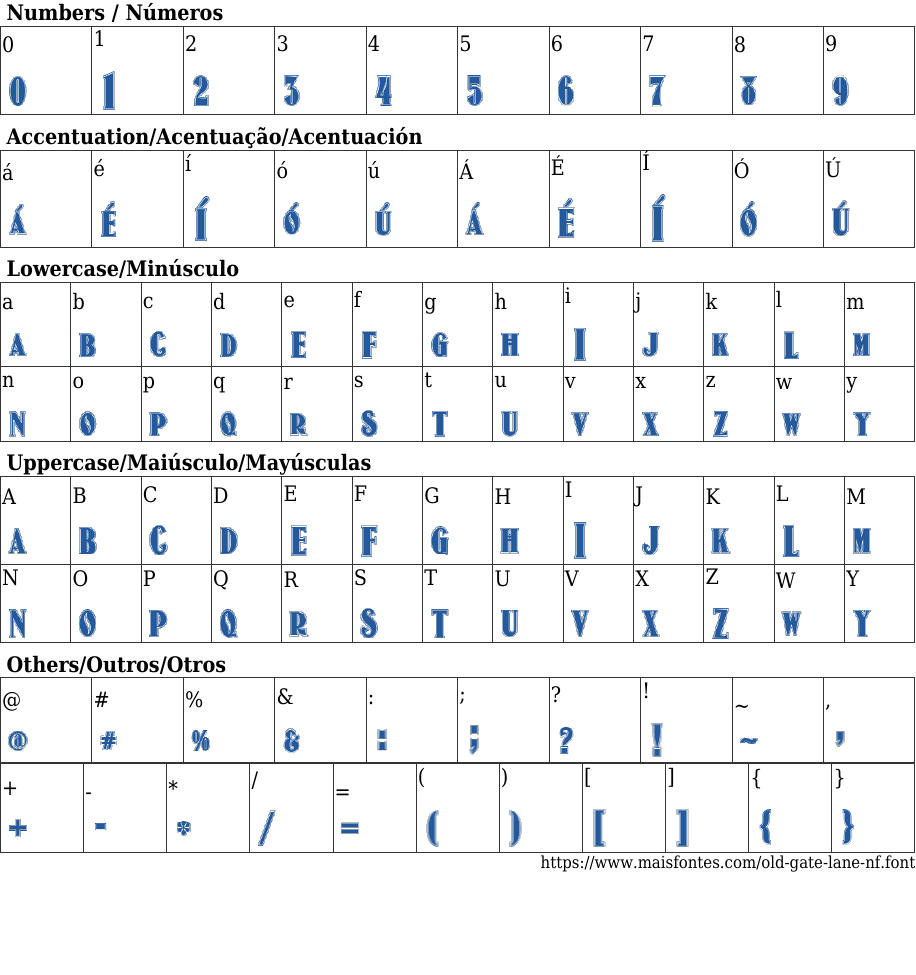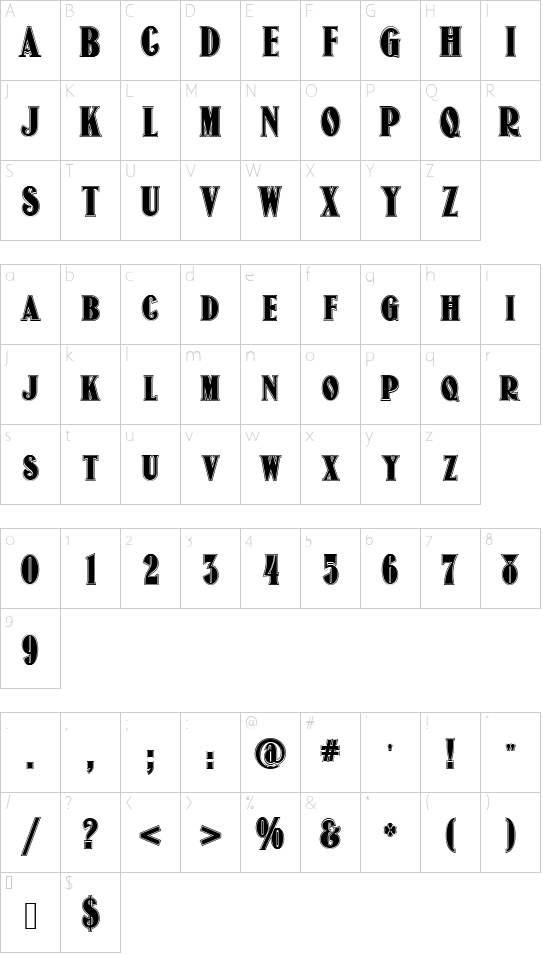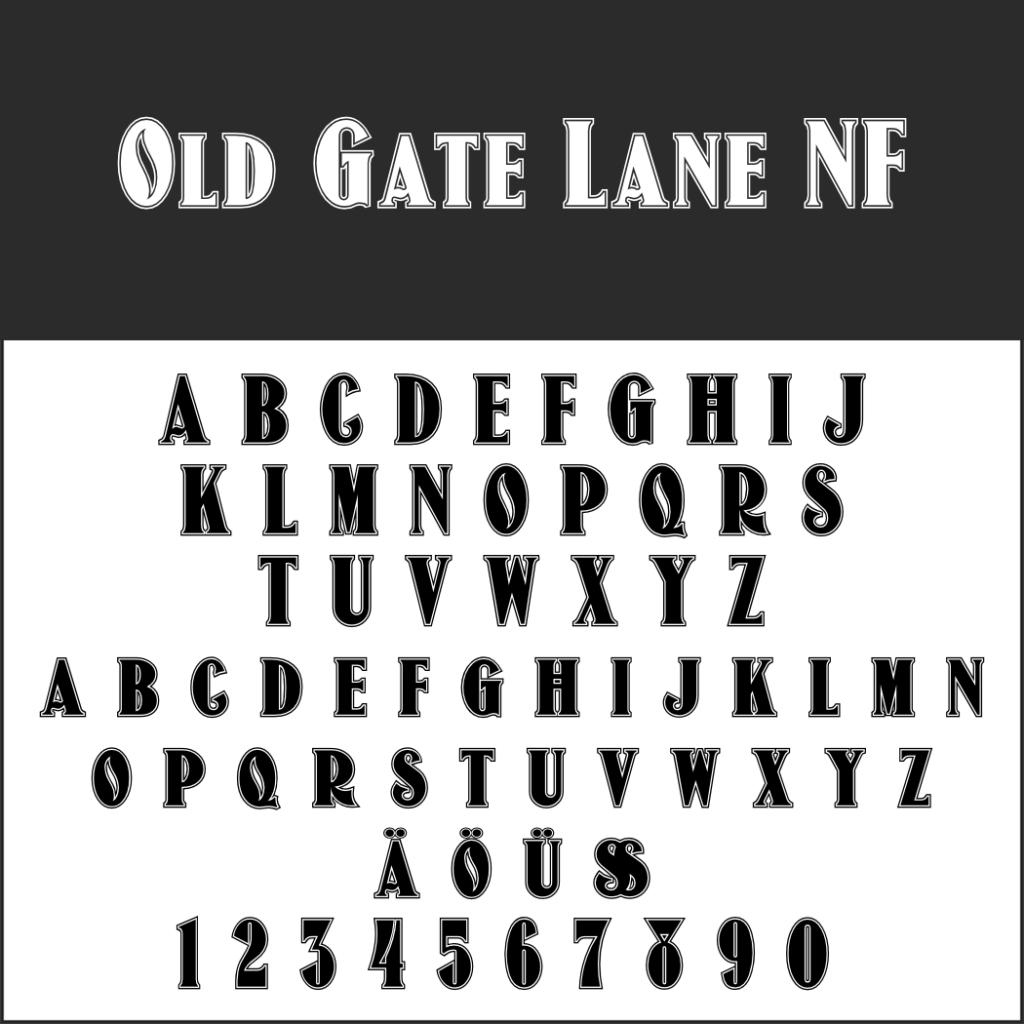
Old Gate Lane Nf Font . The old gate lane nf font contains 231 beautifully designed characters. See the glyphs, the preview and the matching requests on the forum. Old gate lane nf regular font by down fonts. File script name oldgatelanenf.ttf download free for personal use. Download old gate lane nf font · free for commercial use · here’s another reworking of a classic art deco font, binner poster. Download old gate lane nf font. About old gate lane nf regular font. Download oldgate lane outline, a retro font by nick's fonts, for free. ️ customize your own preview on ffonts.net to make sure it`s the right one for your designs. Download and install the font file from nicks fonts website, where you can also find more free fonts for various. Old gate lane nf is a condensed and outlined version of binner poster, an art deco font. It is suitable for formal or fun occasions and best used in larger point sizes. Old gate lane nf by copyright [c] 2001, 2006 nick curtis. Old gate lane is a retro cool lettering font with an outline effect.
See the glyphs, the preview and the matching requests on the forum. Download and install the font file from nicks fonts website, where you can also find more free fonts for various. Download old gate lane nf font. ️ customize your own preview on ffonts.net to make sure it`s the right one for your designs. It is suitable for formal or fun occasions and best used in larger point sizes. Download old gate lane nf font · free for commercial use · here’s another reworking of a classic art deco font, binner poster. Old gate lane is a retro cool lettering font with an outline effect. About old gate lane nf regular font. Old gate lane nf is a condensed and outlined version of binner poster, an art deco font. Old gate lane nf by copyright [c] 2001, 2006 nick curtis.
Old Gate Lane Nf Font Old gate lane nf regular font by down fonts. ️ customize your own preview on ffonts.net to make sure it`s the right one for your designs. The old gate lane nf font contains 231 beautifully designed characters. Old gate lane nf regular font by down fonts. It is suitable for formal or fun occasions and best used in larger point sizes. Download old gate lane nf font · free for commercial use · here’s another reworking of a classic art deco font, binner poster. Old gate lane is a retro cool lettering font with an outline effect. Download and install the font file from nicks fonts website, where you can also find more free fonts for various. Old gate lane nf by copyright [c] 2001, 2006 nick curtis. File script name oldgatelanenf.ttf download free for personal use. About old gate lane nf regular font. See the glyphs, the preview and the matching requests on the forum. Download oldgate lane outline, a retro font by nick's fonts, for free. Old gate lane nf is a condensed and outlined version of binner poster, an art deco font. Download old gate lane nf font.
Old Gate Lane Nf Font About old gate lane nf regular font. Old gate lane is a retro cool lettering font with an outline effect. Old gate lane nf regular font by down fonts. Download old gate lane nf font. See the glyphs, the preview and the matching requests on the forum. ️ customize your own preview on ffonts.net to make sure it`s the right. Old Gate Lane Nf Font.
Old Gate Lane Nf Font Old gate lane nf by copyright [c] 2001, 2006 nick curtis. File script name oldgatelanenf.ttf download free for personal use. Download old gate lane nf font. See the glyphs, the preview and the matching requests on the forum. Old gate lane nf regular font by down fonts. It is suitable for formal or fun occasions and best used in larger. Old Gate Lane Nf Font.
Old Gate Lane NF Regular Download for free at Free Fonts Old Gate Lane Nf Font About old gate lane nf regular font. Old gate lane nf is a condensed and outlined version of binner poster, an art deco font. Download oldgate lane outline, a retro font by nick's fonts, for free. The old gate lane nf font contains 231 beautifully designed characters. Download old gate lane nf font. Download old gate lane nf font ·. Old Gate Lane Nf Font.
Old Gate Lane Nf Font Old gate lane nf is a condensed and outlined version of binner poster, an art deco font. Old gate lane nf by copyright [c] 2001, 2006 nick curtis. The old gate lane nf font contains 231 beautifully designed characters. Download old gate lane nf font. Old gate lane is a retro cool lettering font with an outline effect. Old gate. Old Gate Lane Nf Font.
Old Gate Lane NF Font Zillion Old Gate Lane Nf Font About old gate lane nf regular font. The old gate lane nf font contains 231 beautifully designed characters. Old gate lane nf regular font by down fonts. Old gate lane is a retro cool lettering font with an outline effect. Old gate lane nf is a condensed and outlined version of binner poster, an art deco font. ️ customize your. Old Gate Lane Nf Font.
Old Gate Lane Nf Font Download oldgate lane outline, a retro font by nick's fonts, for free. About old gate lane nf regular font. It is suitable for formal or fun occasions and best used in larger point sizes. ️ customize your own preview on ffonts.net to make sure it`s the right one for your designs. Old gate lane is a retro cool lettering font. Old Gate Lane Nf Font.
Old Gate Lane Nf Font About old gate lane nf regular font. Download old gate lane nf font · free for commercial use · here’s another reworking of a classic art deco font, binner poster. See the glyphs, the preview and the matching requests on the forum. The old gate lane nf font contains 231 beautifully designed characters. ️ customize your own preview on ffonts.net. Old Gate Lane Nf Font.